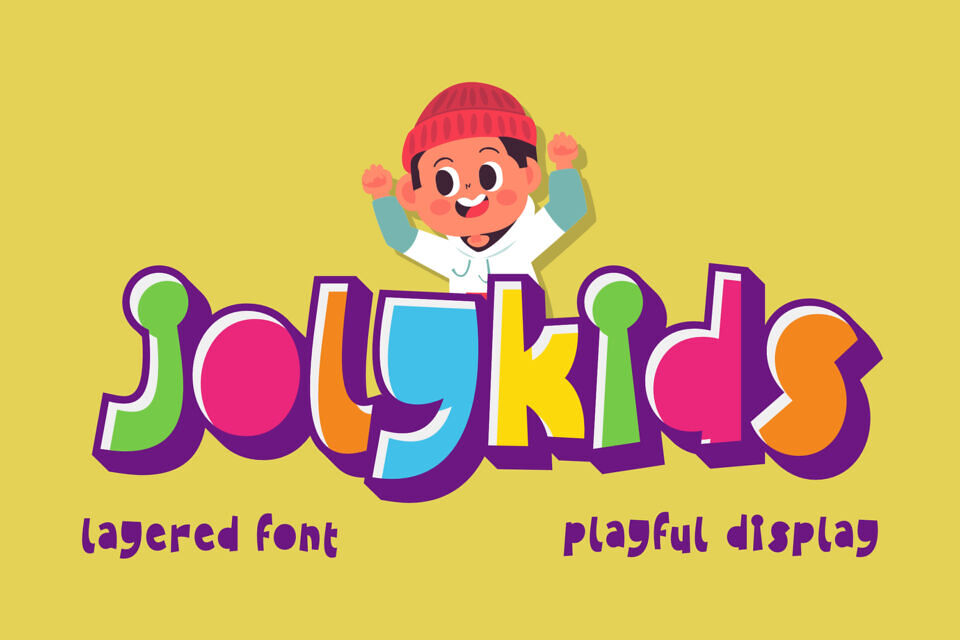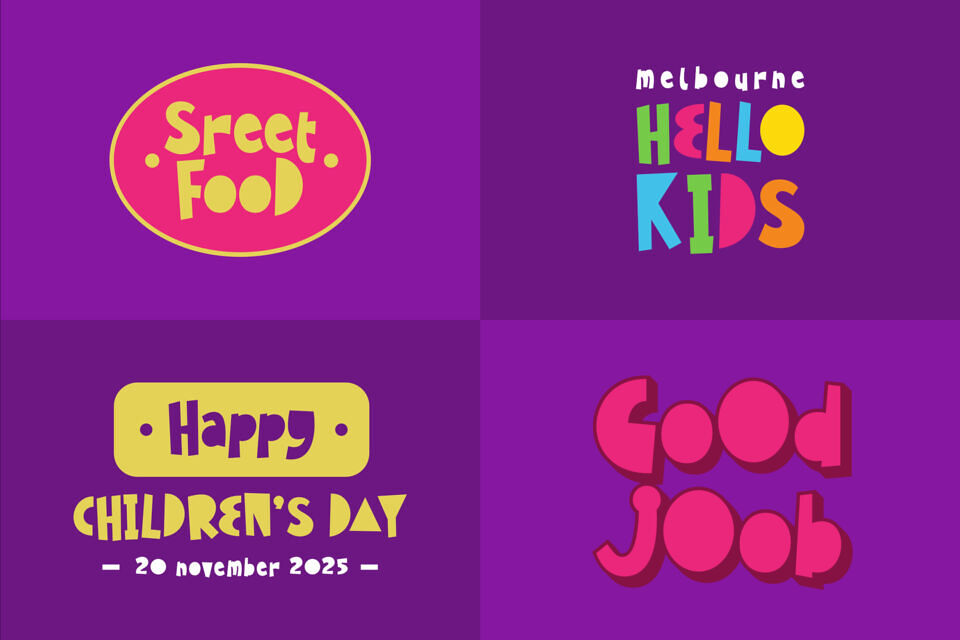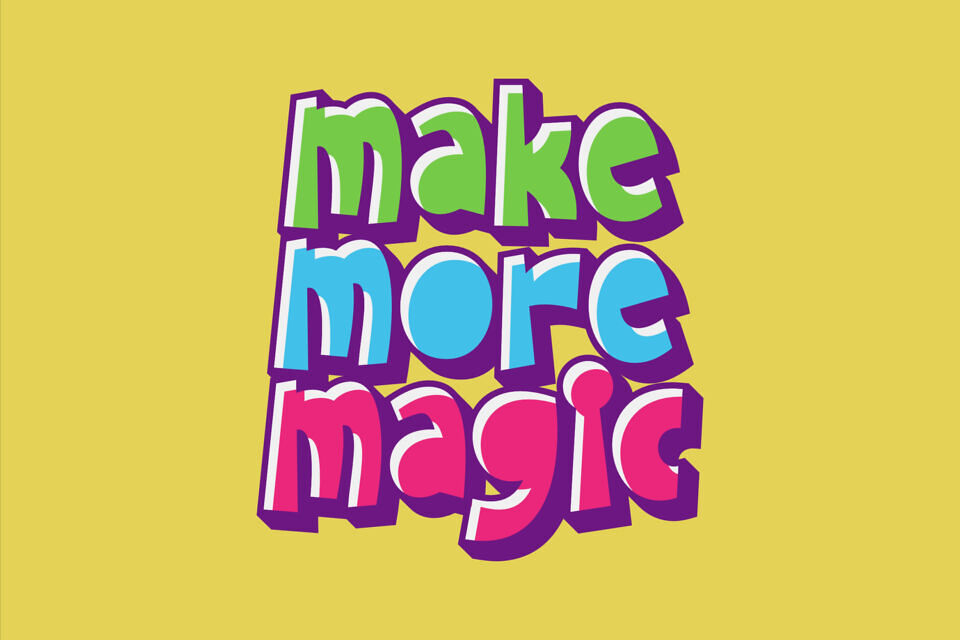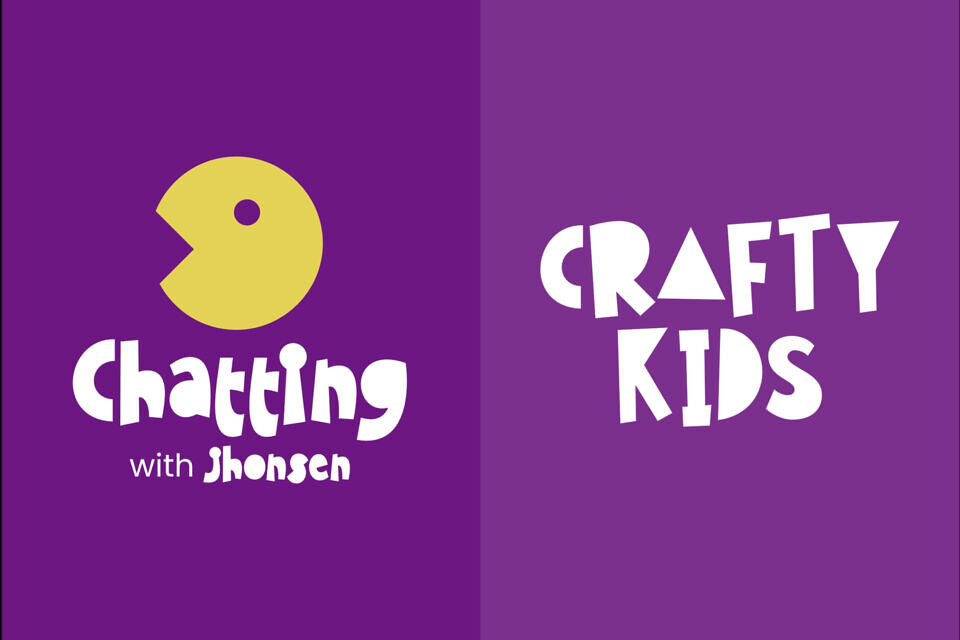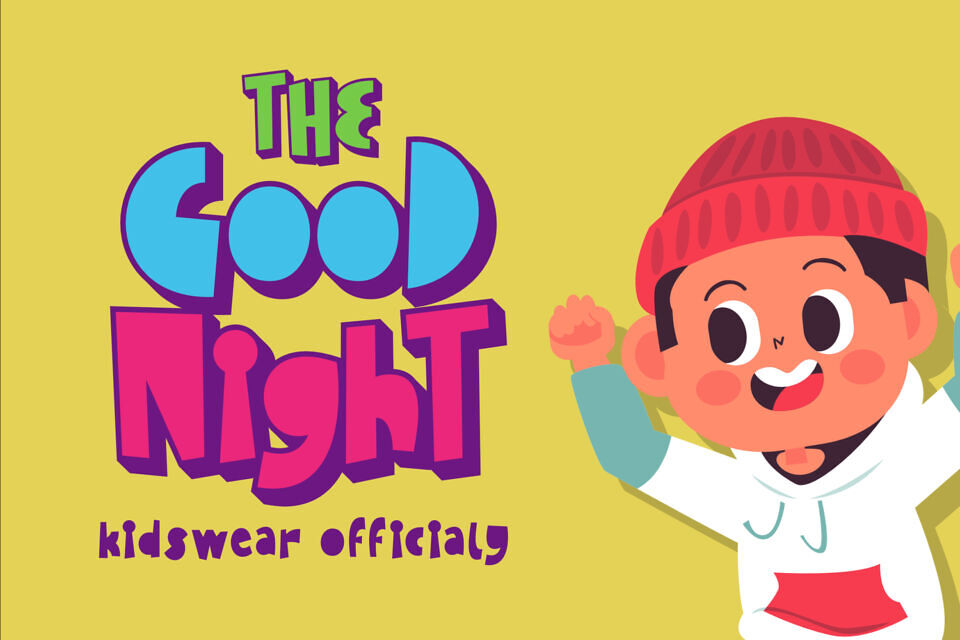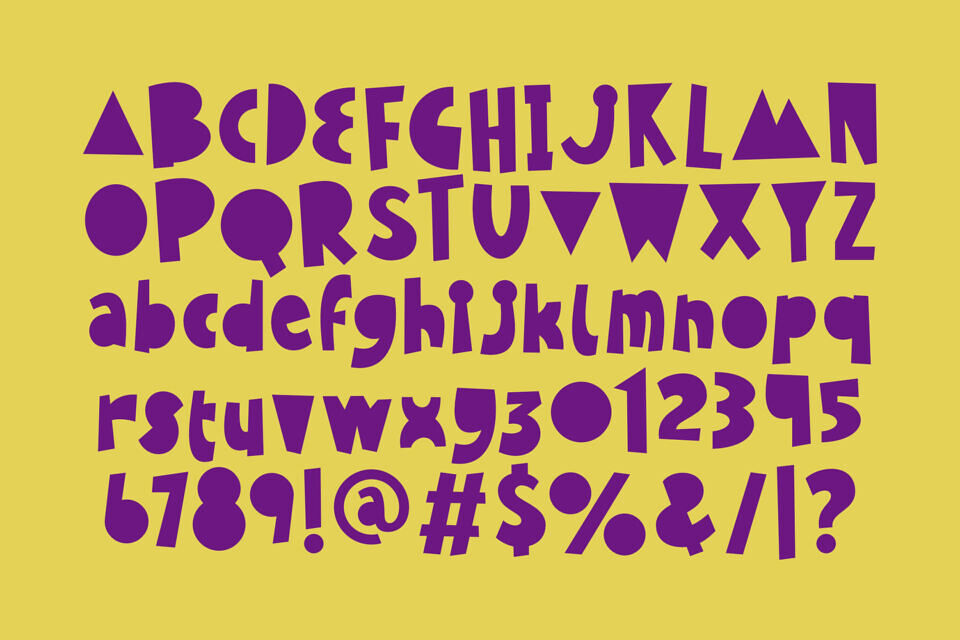
Bring joy and excitement to your designs with Jolykids, a fun and colorful layered display font that sparks creativity! Perfectly crafted for children’s projects, this playful font features bold, bouncy letters with a vibrant, multi-layered style that adds depth and energy to any design.
Why You’ll Love Jolykids:
- Layered & Customizable – Mix and match layers to create eye-catching text!
- Perfect for Kids’ Projects – Ideal for posters, book covers, toys, packaging, branding, and more!
- Friendly & Whimsical Style – Adds a cheerful touch to any design.
Whether you’re working on a fun branding project, children’s book, playful logo, or eye-catching social media graphics, Jolykids brings out the inner child in every design!